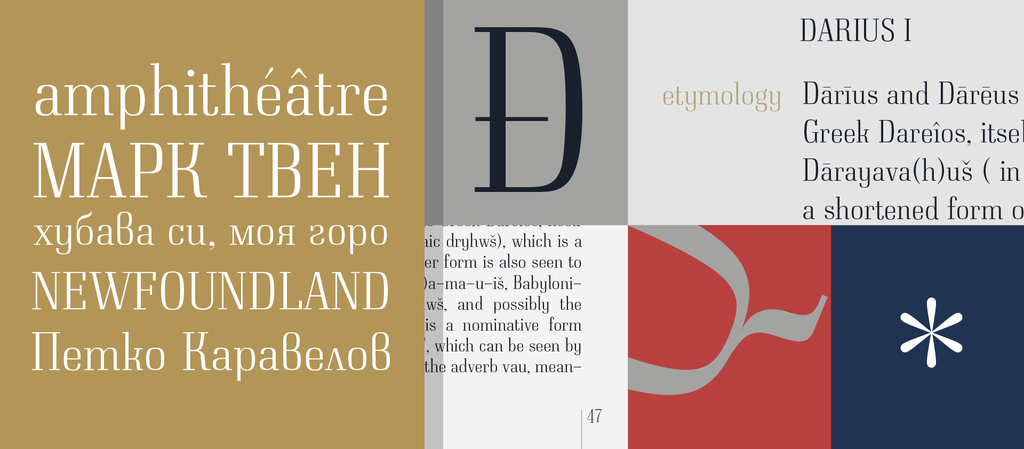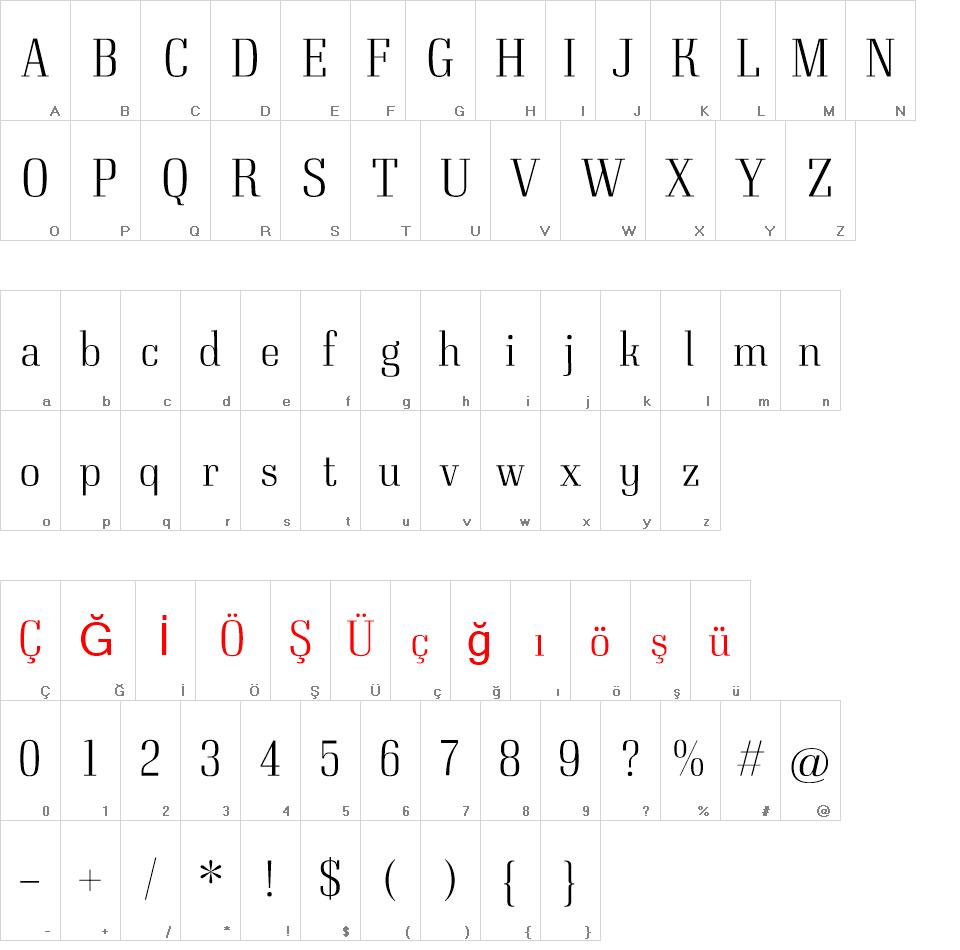
Our latest release is the Didones inspired – sturdy and “mechanical” Neumann. It all started with the idea of a revival of the Quirinus typeface, designed by Alessandro Butti and published by the Italian type foundry Nebiolo back in 1939. We first saw the typeface back in 2012 in the Vasil Ionchev’s book “??????? ???? ????????” (not translated in English) and instantly fell in love with it – it was a different kind of high-contrast design – way more technical looking than the other didones.
After a quick research we found out that at that time there was no digital version of Quirinus, or at least no digital version of the light/regular design, only a bold version was being sold by Monotype. So the idea of a revival was the logical one.
We only had few pictures of how the regular weight looked like, so not long after that we started to tweak and change a lot of the features, aiming for a more classic looking design. The final design is the result of almost three years wandering between design decisions and constant changes.
With the Neumann typeface we try to add a bit of fresh air in the Didones scene with its more rectangular look and more manly appearance. It comes supporting both the Latin and Cyrillic codepages.